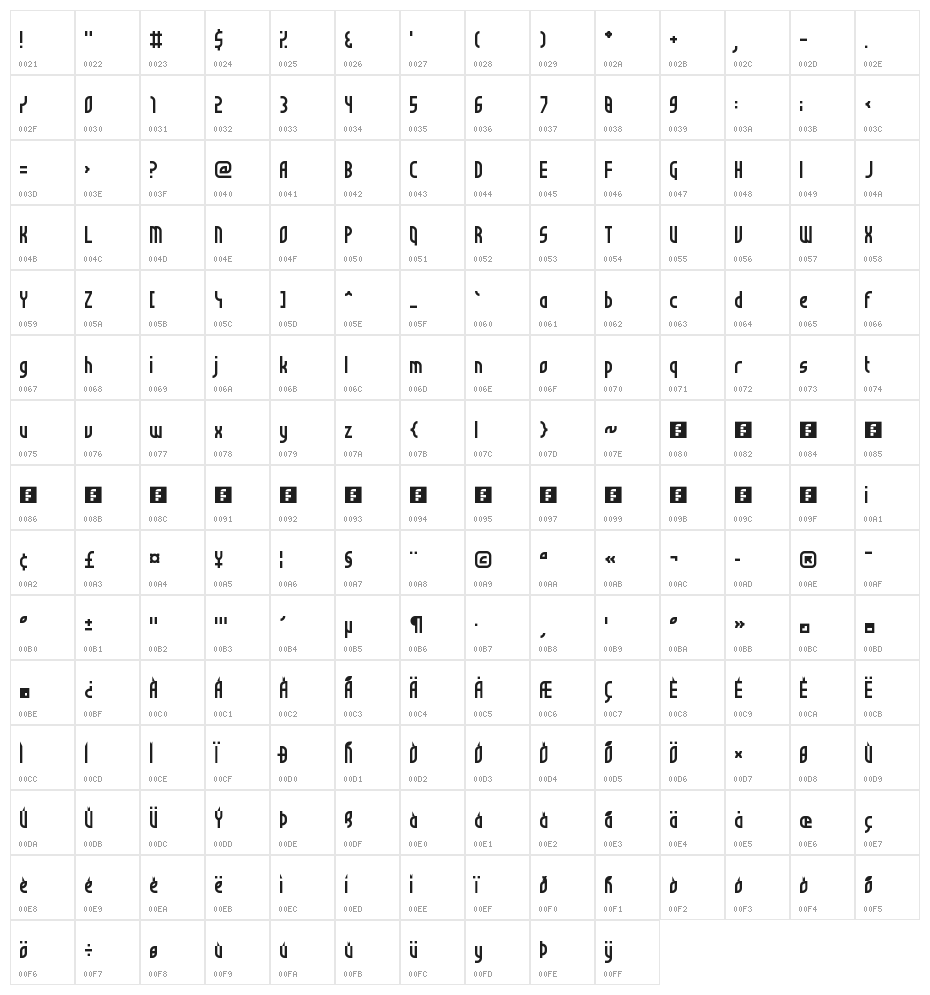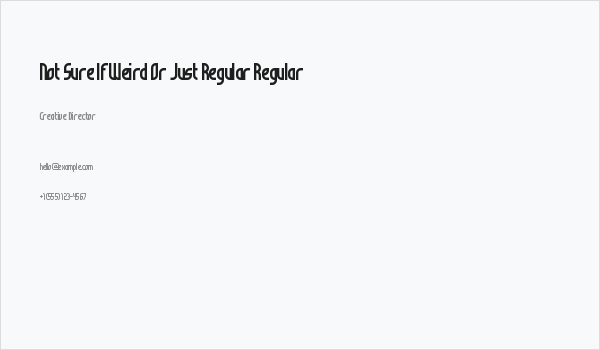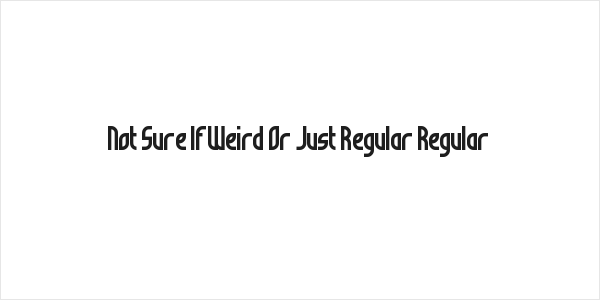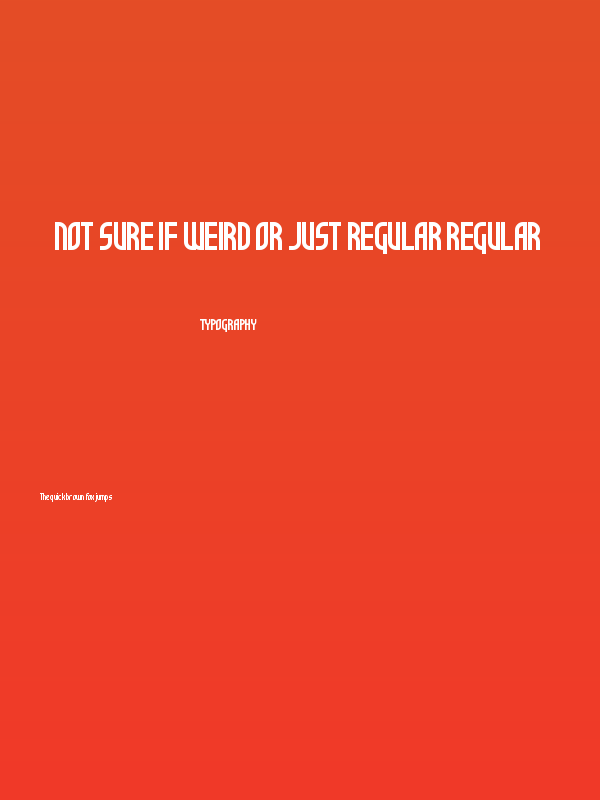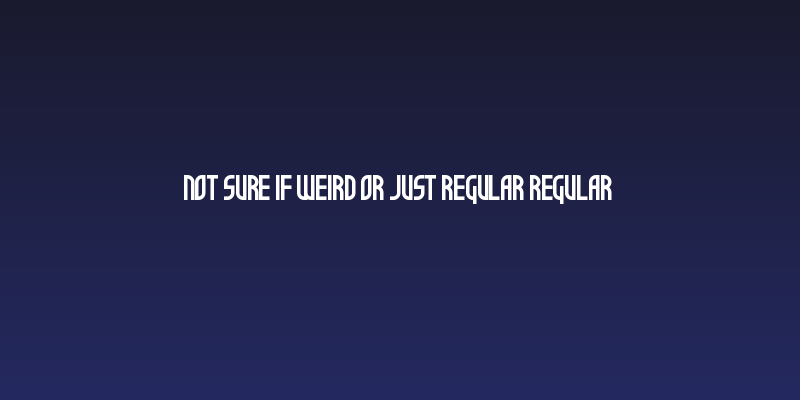
Not Sure If Weird Or Just Regular Font
Not Sure If Weird Or Just Regular Description
This font features a bold, geometric style with a modern twist. The characters are constructed with uniform stroke widths, creating a clean and structured appearance. The uppercase letters are tall and narrow, while the lowercase letters maintain a similar width, offering a cohesive look. The numbers and special characters follow the same design principles, ensuring consistency across all glyphs. The overall design is sleek and futuristic, making it suitable for contemporary projects that require a distinctive and eye-catching typeface.
| Proposed Projects | Ideal for branding, posters, and digital media where a modern and bold statement is needed. |